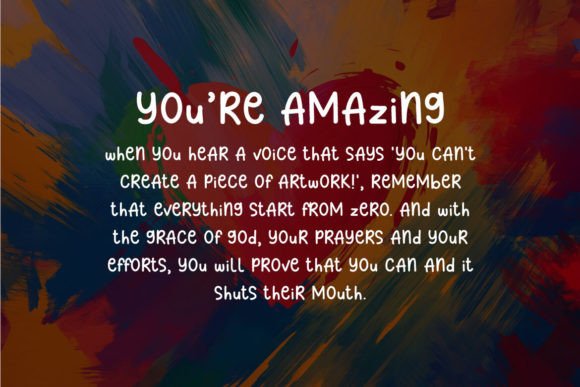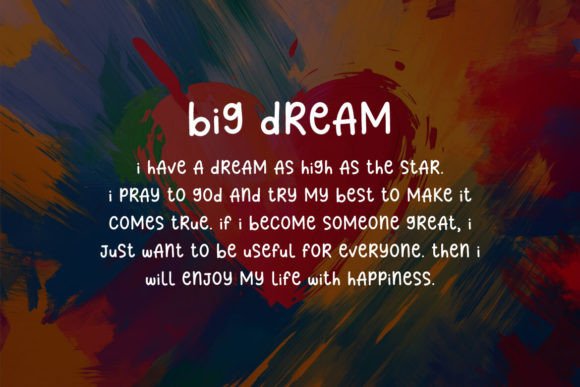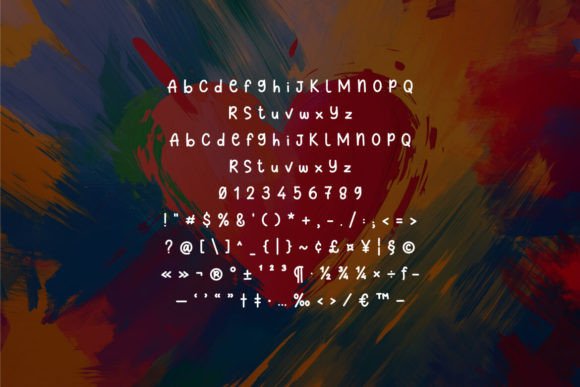
Introduction to Heart Mind Font
Have you ever stumbled upon a font that instantly sparks creativity and makes you want to dive into a new project? For designers, finding the perfect font can be a game-changer. It’s like discovering a hidden treasure that elevates your work from good to great. For me, that moment came when I discovered the **Heart Mind Font**.
This delightful and playful typeface is a design resource that’s hard to resist. With its whimsical curves and cute, hand-drawn style, the **Heart Mind Font** brings a friendly, personal feel to your designs. Whether you’re crafting invitations, logos, social media posts, or greeting cards, this high-quality font will make your text stand out with its unique and approachable character.
Key Features of Heart Mind Font
- High-quality, handcrafted design resource for creative projects
- Transparent background for seamless integration into various design elements
- Unique characteristics: elegant, modern, and minimalist aesthetic
- Perfect for designing logos, branding materials, and digital products
Honest Review: Heart Mind Font
I recently had the chance to work with the Heart Mind Font for a creative project, and I was quite impressed. As a design resource, it has some amazing qualities that make it a great choice for designers looking for a unique and high-quality font.
- High-quality design: The font is beautifully crafted, with intricate details and a smooth texture.
- Transparent background: This feature makes it easy to use the font on any background, without worrying about it getting lost.
- Limited character set: The font is missing some common characters, which can be a bit frustrating.
- Not suitable for all designs: The font’s style may not be the best fit for every project, so be sure to test it before committing.
Overall, I’m quite pleased with the Heart Mind Font. It’s a great choice for designers looking for a unique and high-quality font for their creative projects. While it has some limitations, the benefits far outweigh the drawbacks. I’d definitely recommend it to fellow designers looking for a great design resource.
How to Use Heart Mind Font
To get the most out of the Heart Mind Font, try using it in combination with other design elements, such as images and graphics. You can also experiment with different font sizes and styles to create a unique and eye-catching design. Additionally, make sure to save your design as a high-resolution file to ensure that it looks great on any device.
The Heart Mind Font is perfect for a variety of creative projects, including social media graphics, website design, marketing materials, and presentations. It’s also great for creating custom logos, business cards, and other branding materials. With its high-quality design and transparent background, the Heart Mind Font is a versatile and reliable design resource that’s sure to meet your needs.
Alternatives to Heart Mind Font
Alex Brush Font is a beautiful, handwritten font ideal for design projects that need a personal touch. It features a high-quality design and is perfect for use in creative projects such as invitations, quotes, and signage. When to use: invitations, quotes, signage. Comparison: Alex Brush Font has a more delicate and intricate design compared to Heart Mind Font, which is more bold and playful.
Can I modify the Heart Mind Font to suit my design needs?
Yes, Heart Mind Font is a fully editable font, which means you can modify it to suit your design needs. You can use font editing software, such as FontForge or FontLab, to customize the font’s appearance, including its size, color, and style. However, please note that modifying the font may affect its compatibility with certain design software or platforms.